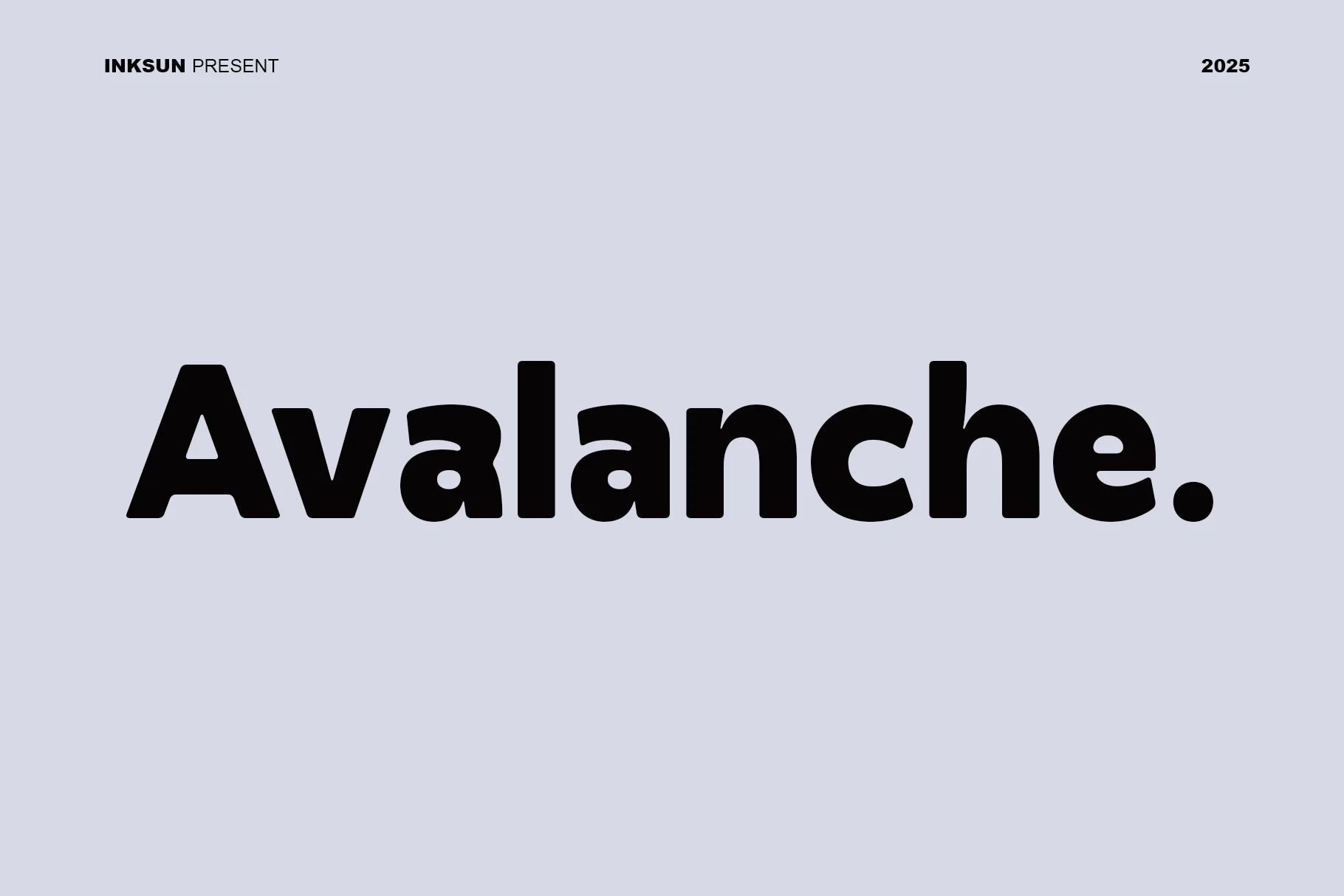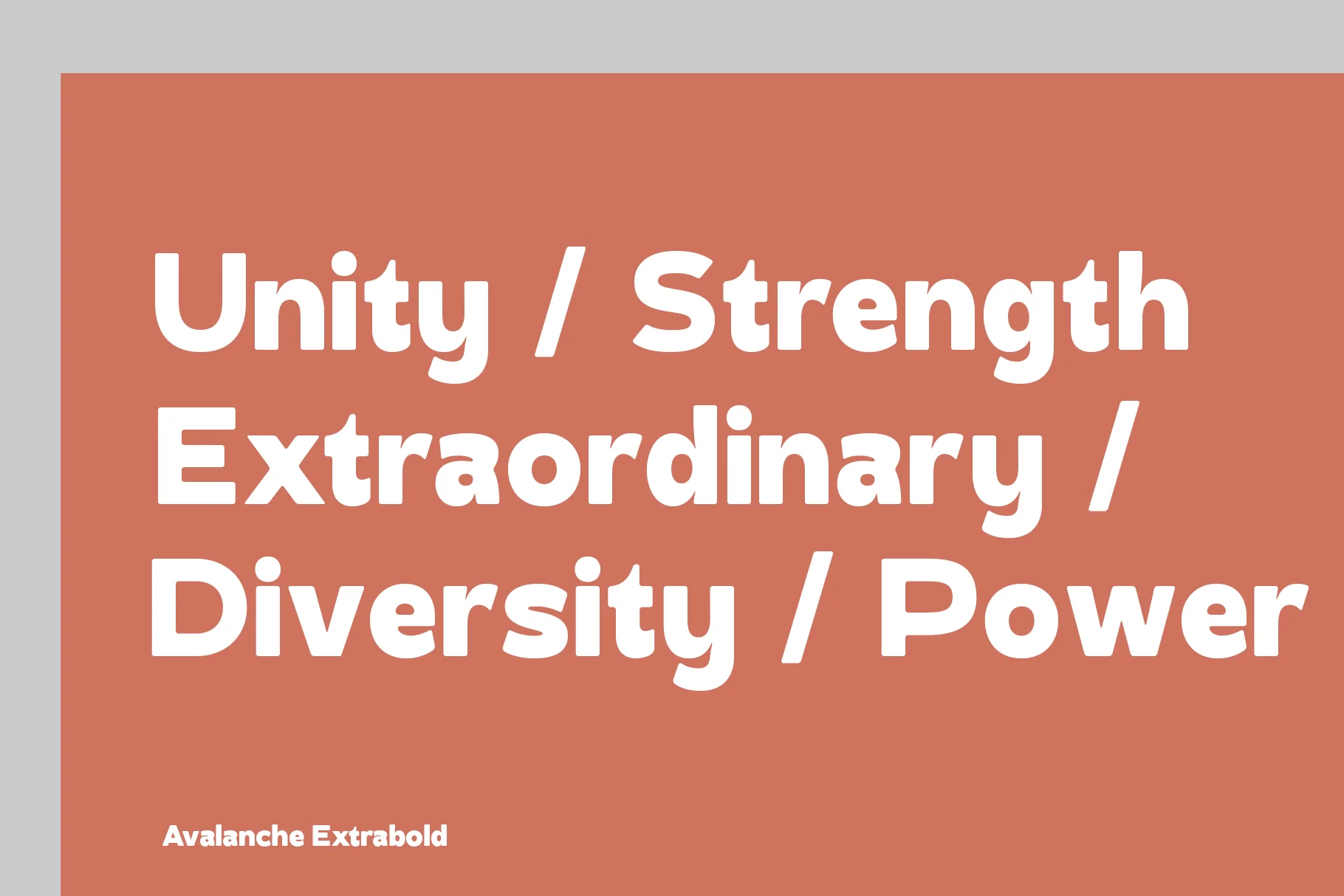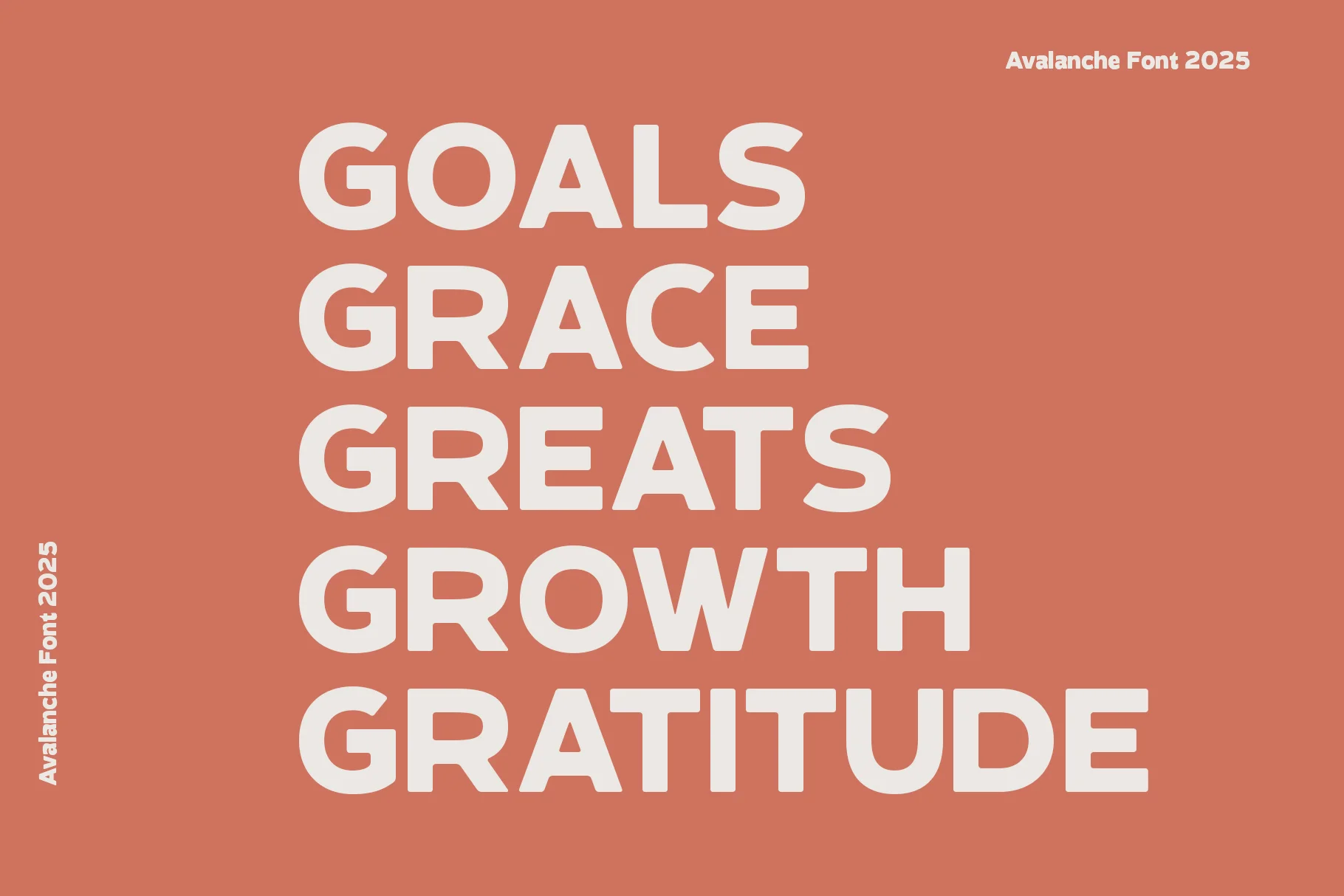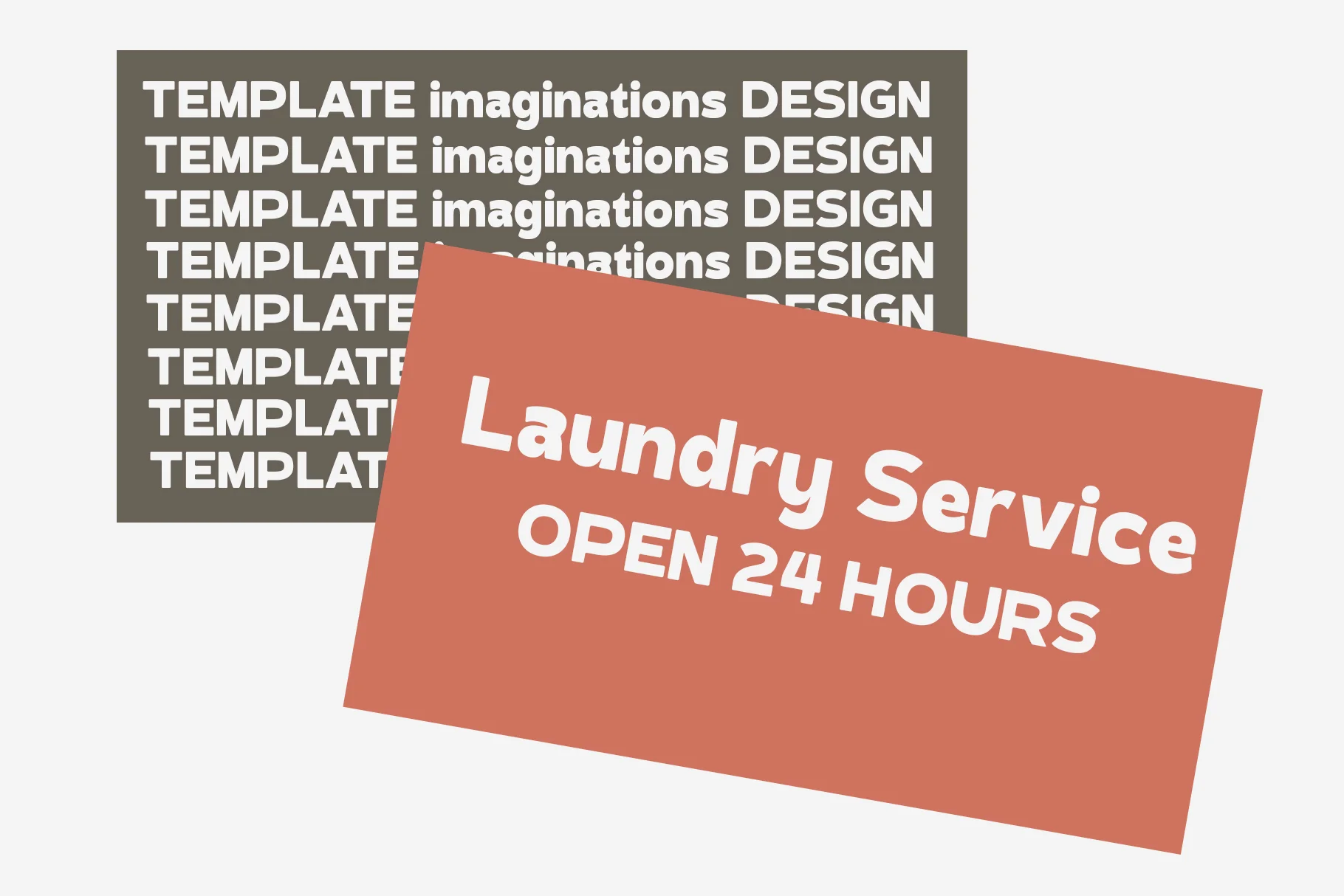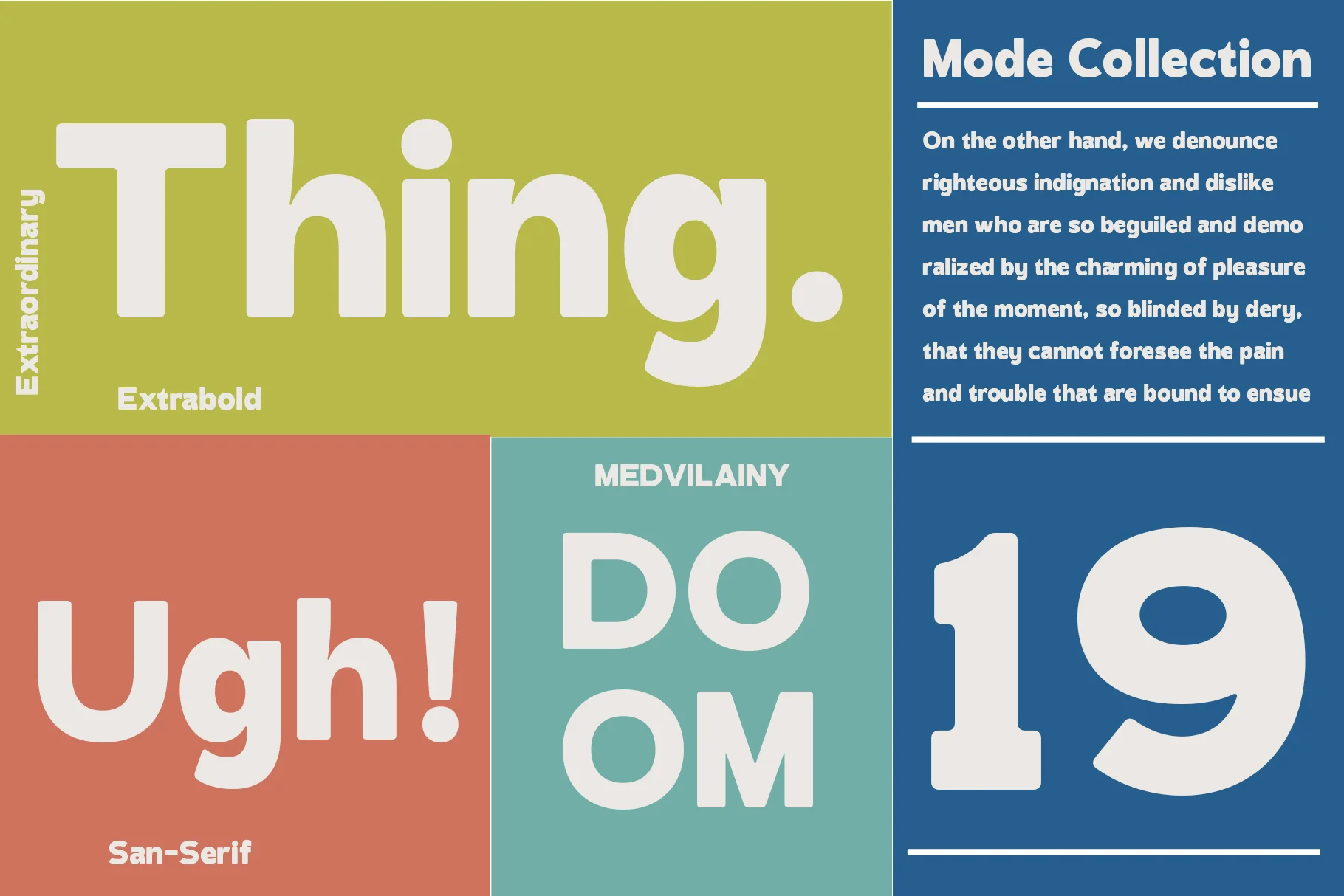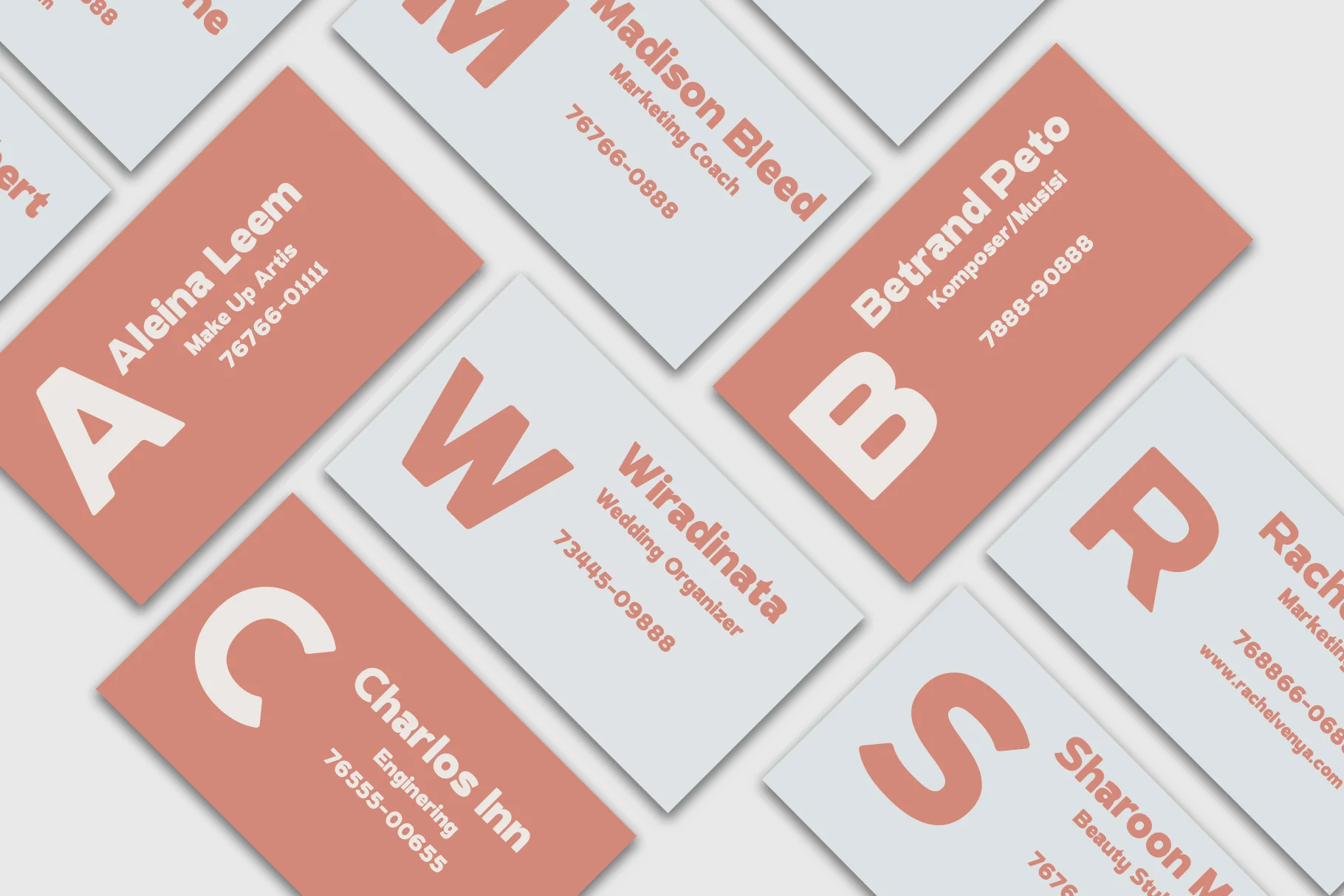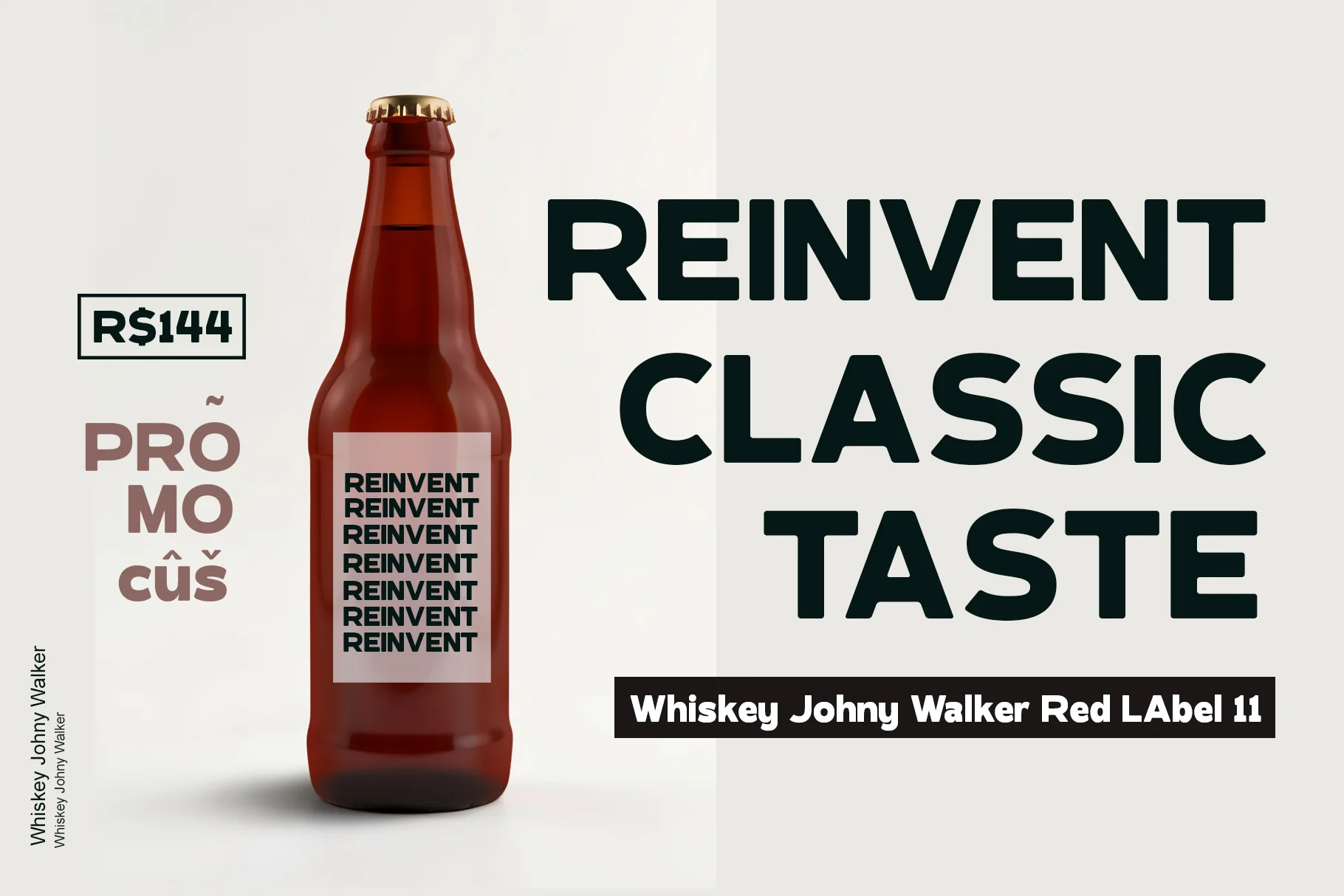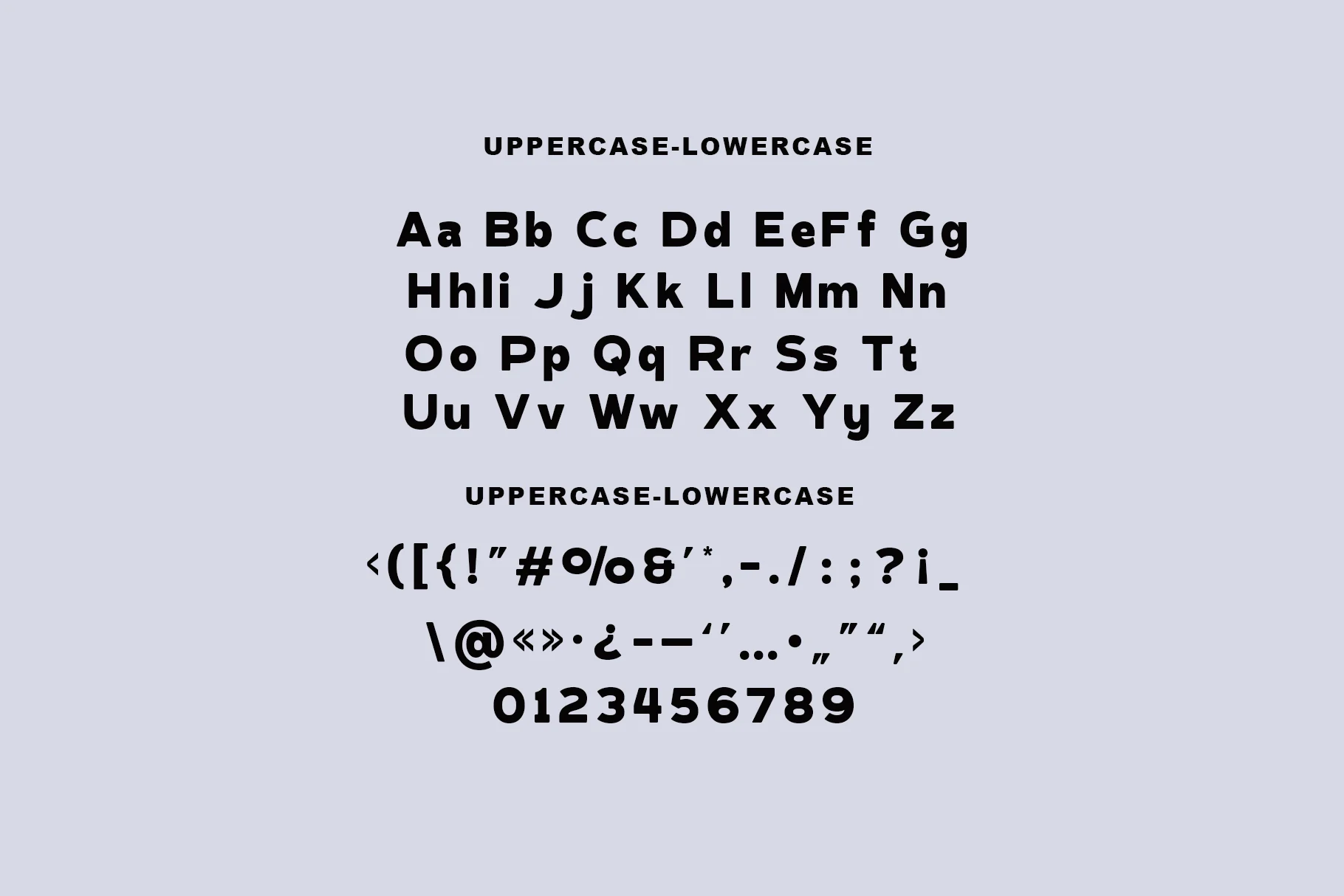
Avalanche
The "Avalanche" typeface projects an impression that is modern, strong, and straightforward, with a keen focus on clarity and visual impact.This is a sans-serif typeface that is bold (or heavy), meaning it lacks serifs (small hooks or lines) at the ends of the strokes.Ideal for modern branding, magazine headlines, posters, logos for bold technology or fashion companies, and product packaging that seeks to emphasize strength and simplicity.
Features
- Uppercase and Lowercase – Complete range of letter cases for diverse uses.
- Numerals – Includes numbers for various creative needs.
- Functional – Designed for efficiency and aesthetic appeal.
- Multilingual Support – Includes characters for multiple languages.
- Stylistic Variations – Offers creative style options.